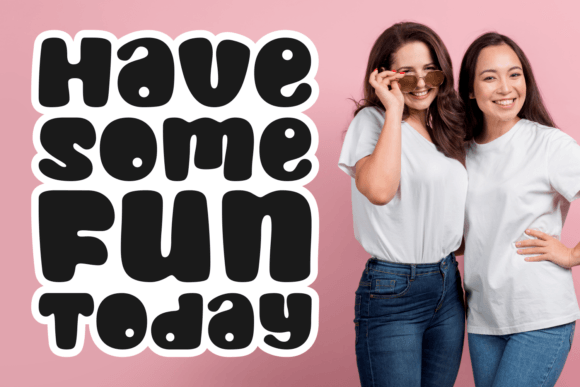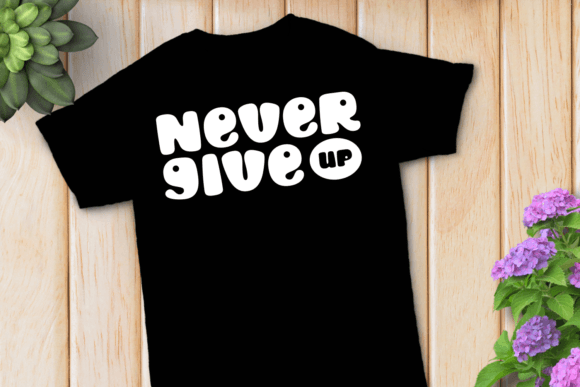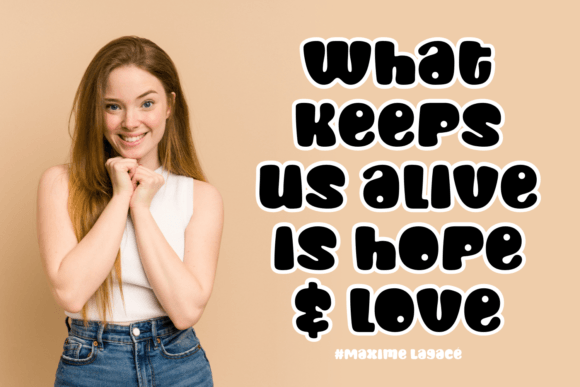
Introduction to Good Hope Font
Good Hope is chunky and cute display font perfect for all your kid-friendly designs.
Its cheerful and childish personality will make it the right choice when you need a positive vibe .
Key Features of Good Hope Font
Why Choose Good Hope Font?